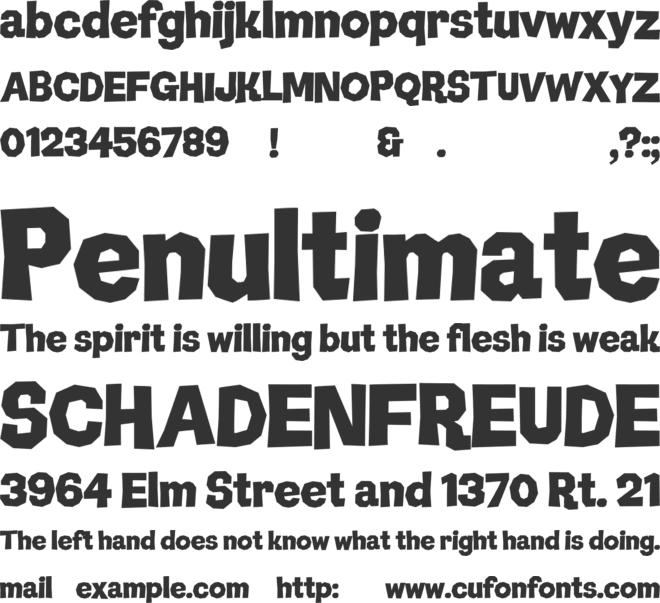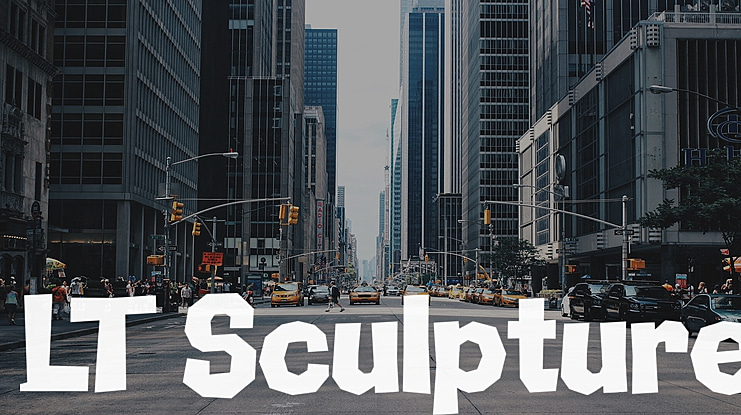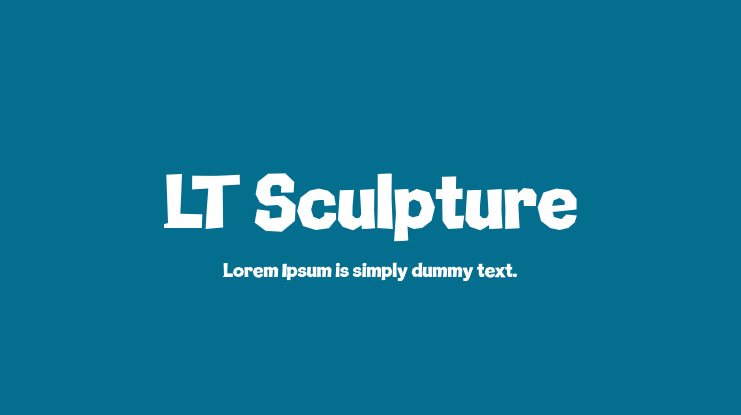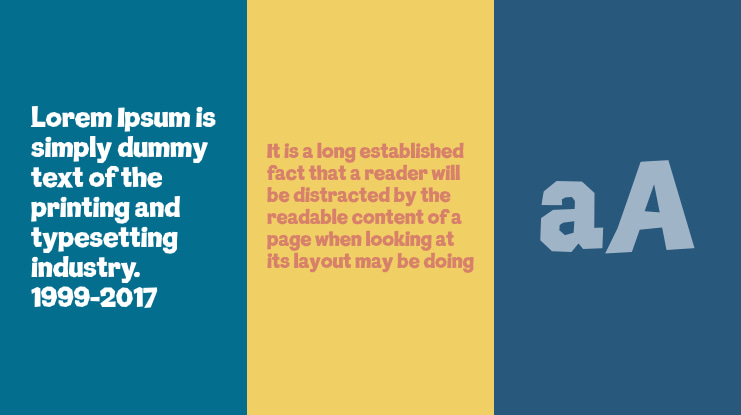
LT Sculpture Font
A scissor-cut typeface based on the alphabet by Edw. Dunav - certainly usable for comics, cartoons, etc.
Part of LyonsType Classics.